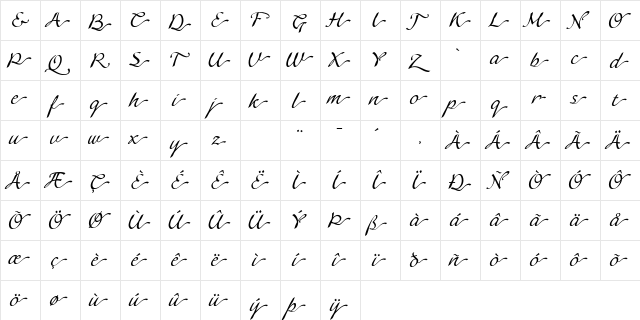
Agogo Linotype Swash One Regular
Design Context for Agogo Linotype Swash One Typeface
Agogo Linotype Swash One brings a calligraphic fluidity to the page — its connecting strokes and expressive curves give it an unmistakably human quality.
Font Pairing: Combine Agogo Linotype Swash One with a simple geometric sans for maximum contrast — the tension between flowing curves and clean structure is a classic typographic pairing.
Pro Tip: Use Agogo Linotype Swash One for short runs of text — names, titles, or taglines. Extended body copy in script faces tires the eye quickly.